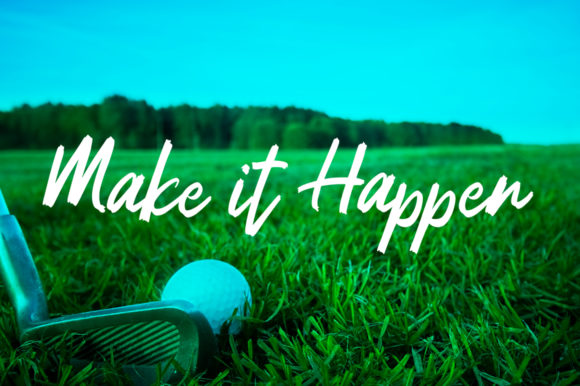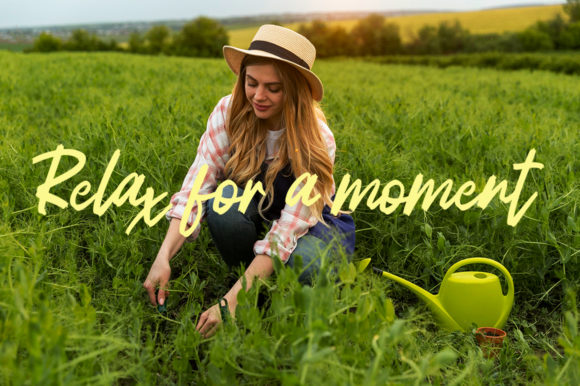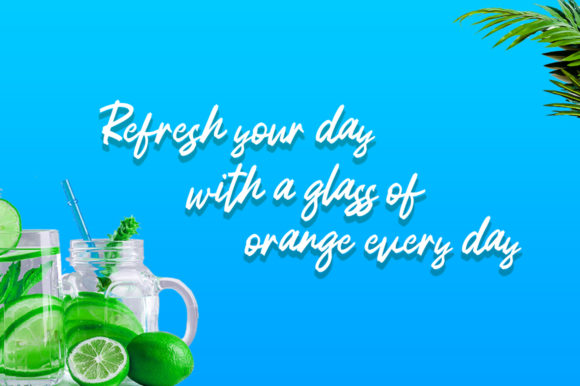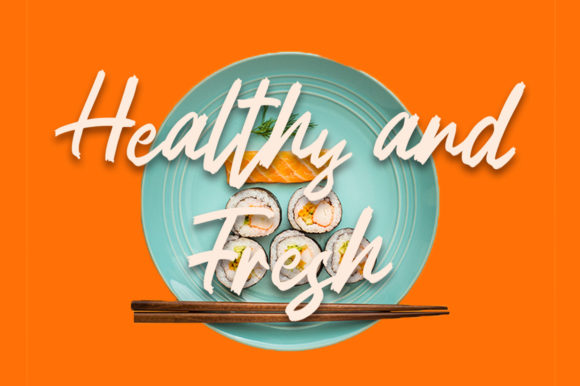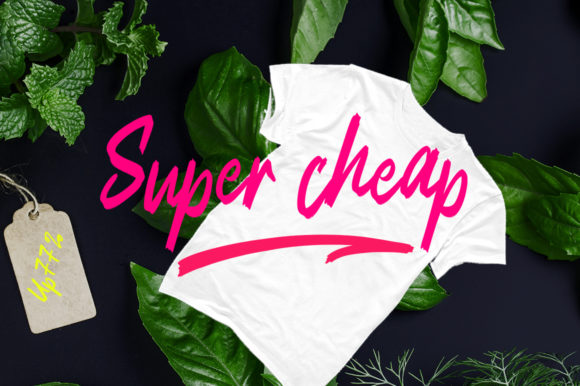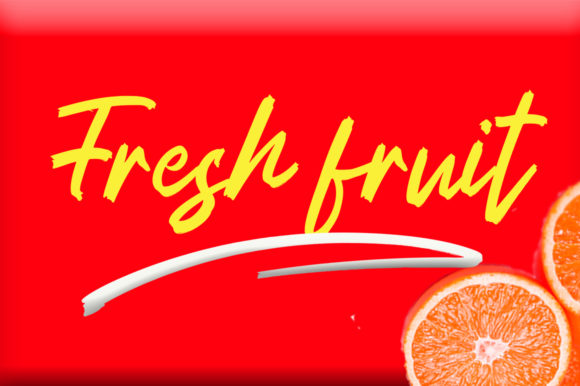
Discover the Elegance of Anatomi Font: Elevate Your Designs with a Touch of Sophistication
Are you on the hunt for a font that exudes elegance, sophistication, and a dash of modern flair? Look no further than the Anatomi Font, a stunning handwritten typeface that is sure to capture your heart. Designed with meticulous attention to detail, Anatomi seamlessly blends classic calligraphic influences with a contemporary twist, making it the perfect addition to your design arsenal.
The Anatomy of Elegance: What Makes Anatomi Font Stand Out
Anatomi Font is not just any ordinary font; it’s a masterpiece crafted to bring a touch of luxury to your projects. Here are some key features that set Anatomi apart:
- Exquisite Handwritten Design: Anatomi boasts a beautiful, hand-crafted design that gives it a personal and intimate feel. Each letter is carefully drawn to ensure a harmonious flow, making it perfect for projects that demand a high level of sophistication.
- Classy Calligraphic Influences: The font maintains a strong connection to traditional calligraphy, offering a sense of timelessness and elegance. This makes Anatomi an excellent choice for wedding invitations, luxury branding, and high-end editorial projects.
- Contemporary and Fresh: Despite its classic roots, Anatomi Font feels remarkably contemporary. Its clean lines and subtle nuances ensure it remains versatile and adaptable to a wide range of design applications.
Why Designers and Crafters Love Anatomi Font
Anatomi Font has quickly become a favorite among designers and crafters for several compelling reasons:
- Versatility: Whether you’re working on a wedding invitation, a fashion brand’s logo, or a high-end editorial project, Anatomi adapts effortlessly to any design scenario.
- Emotional Connection: The handwritten nature of Anatomi creates an instant emotional connection with the reader, making it ideal for projects where you want to convey warmth and personality.
- Easy to Read: Despite its elegant and cursive nature, Anatomi Font remains highly legible, ensuring your message is conveyed clearly and effectively.
How to Use Anatomi Font to Elevate Your Projects
Incorporating Anatomi Font into your designs is a surefire way to elevate your work to new heights. Here are some ideas to get you started:
- Wedding and Event Stationery: Create stunning wedding invitations, save-the-date cards, and event programs that set the tone for a sophisticated and memorable occasion.
- Luxury Branding: Use Anatomi to develop a luxurious brand identity that exudes elegance and refinement. Perfect for high-end fashion, beauty, and lifestyle brands.
- Editorial and Publishing: Add a touch of class to your editorial projects, such as magazines, blogs, and book covers, with Anatomi’s beautiful and sophisticated lettering.
Anatomi Font is a true gem in the world of typography, offering a unique blend of classic elegance and modern sophistication. Whether you’re a designer, crafter, or simply someone who appreciates beautiful typography, Anatomi is sure to captivate you. With its exquisite handwritten design, classy calligraphic influences, and contemporary feel, Anatomi Font is the perfect choice for anyone looking to elevate their projects to the highest levels. So why wait? Fall in love with Anatomi and discover a world of limitless creative possibilities.